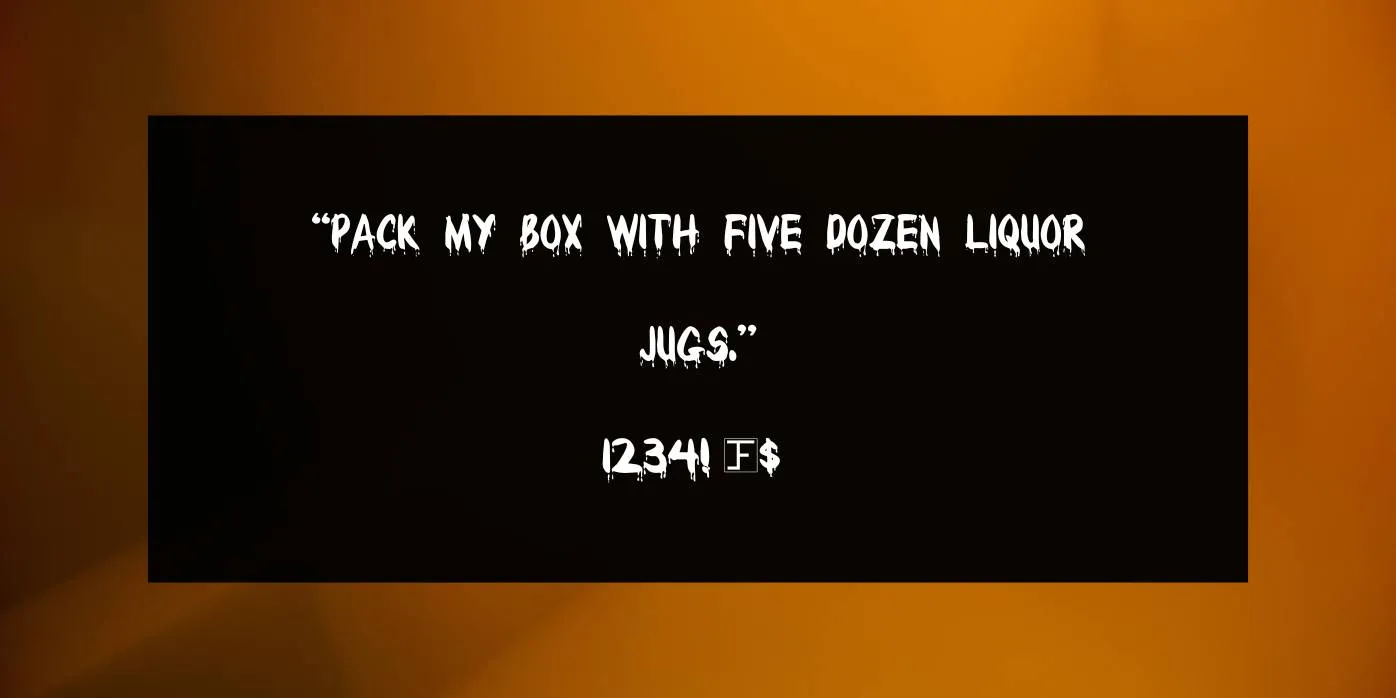
Bloody Font belongs to the fancy font family that was created by James Fordyce. This typeface comes with solo weight Regular along with an open-font license. It is available in TTF and OTF file formats.
This typeface also contains watery and runny frightened characters including uppercase, lowercase, digits, punctuations, symbols, signs, ligatures, alternates, accents, and a few special characters too.
This typeface can give a horror and scary impression to all types of projects like logos, titles, captions, headlines, newspapers, flyers, night parties, themes, backgrounds, etc.
If you want to make a horror party theme and a scary background then this typeface is the best reference for you to utilize, it can make your project more frightening and horror.
Overall, this typeface is the perfect selection for scary texture projects, its watery and runny characters make it a fantastic choice for designers and creators to apply it into their projects. This typeface is a great choice for horror posters, banners, advertisements, branding, marketing, promotional videos, ads, tags, comic books, book covers, story headlines, and a lot more purposes.